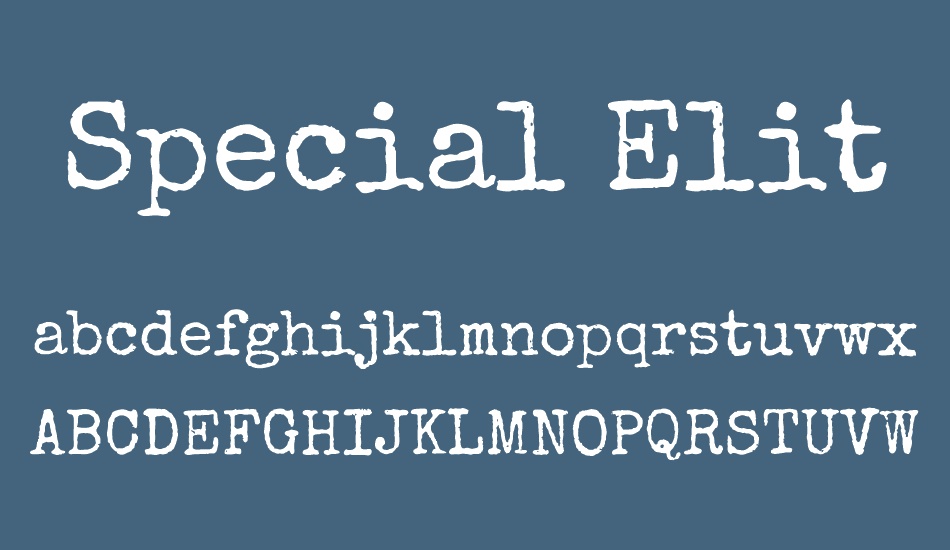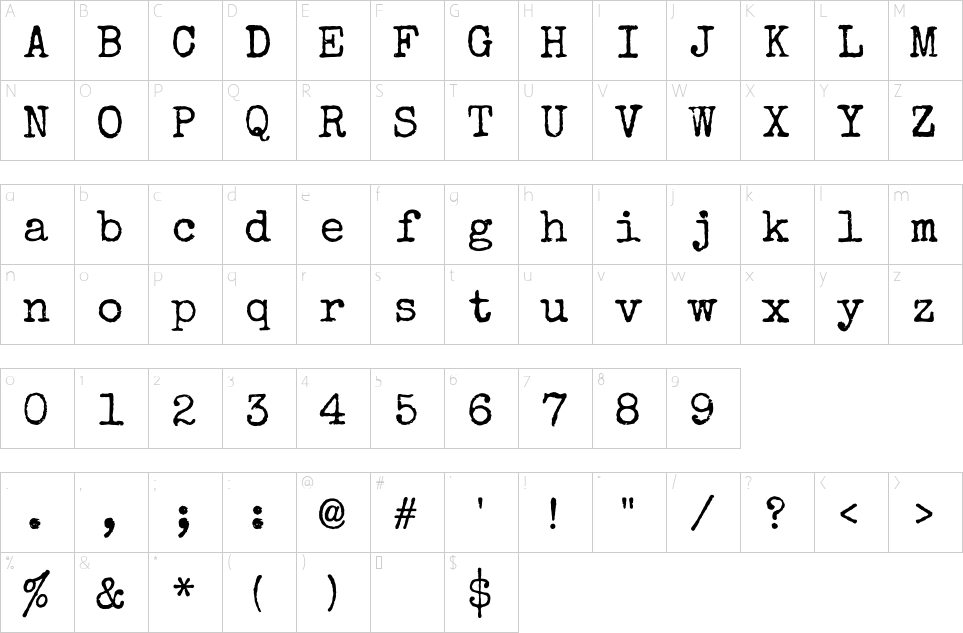
Special Elite Font
Special Elite Font - Web special elite mimics the smith corona special elite type number nr6 and remington noiseless typewriter models.